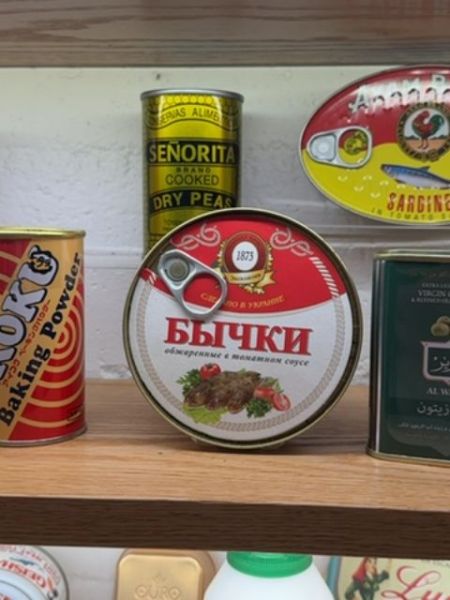
Бычки
Canned bullhead fish in tomato sauce.
1873
Russia
The typography on the can is prominently styled in bold Cyrillic script, using red to create a striking contrast against the white background. The use of serif fonts adds a traditional and authentic feel, aligning with the product's heritage and long-standing history.
The packaging features a cylindrical metal can with a pull-tab lid, showcasing vibrant colors and decorative elements. The label combines red and white with images of the product, contributing to an appealing and appetizing appearance.